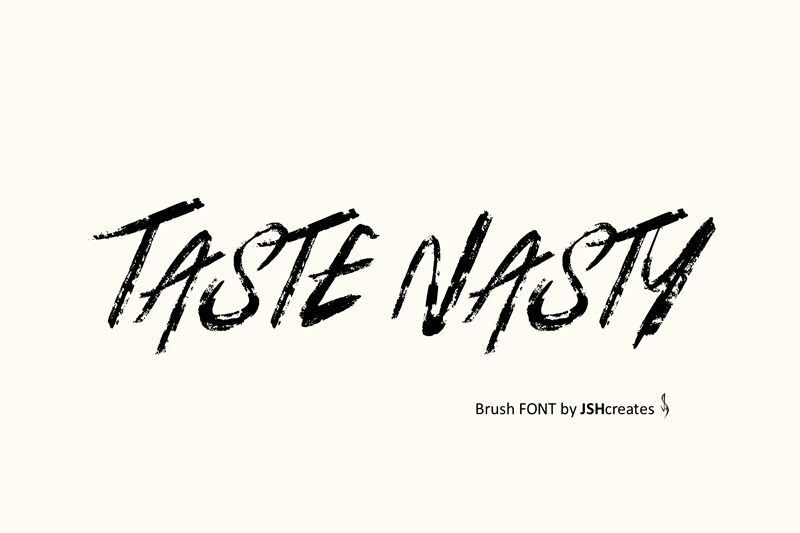
Taste Nasty
Taste Nasty font by JSH creates bursts with grunge-like, textured expressiveness in a brush style. A condensed and urban typeface, it seamlessly integrates raw energy with an artistic flair for attention-grabbing designs. Its undeniably unique appearance brings life to the text that uses it.